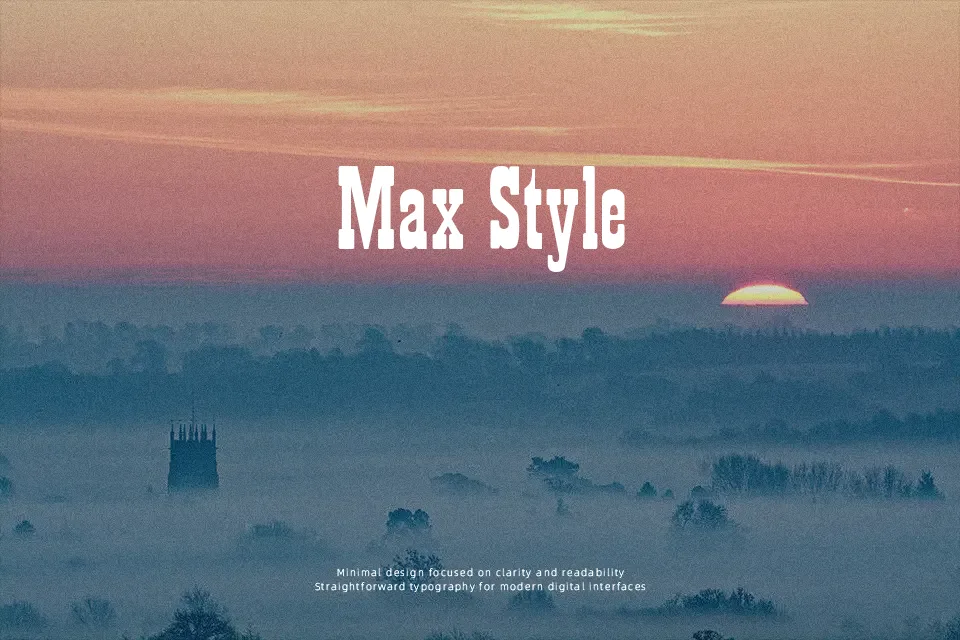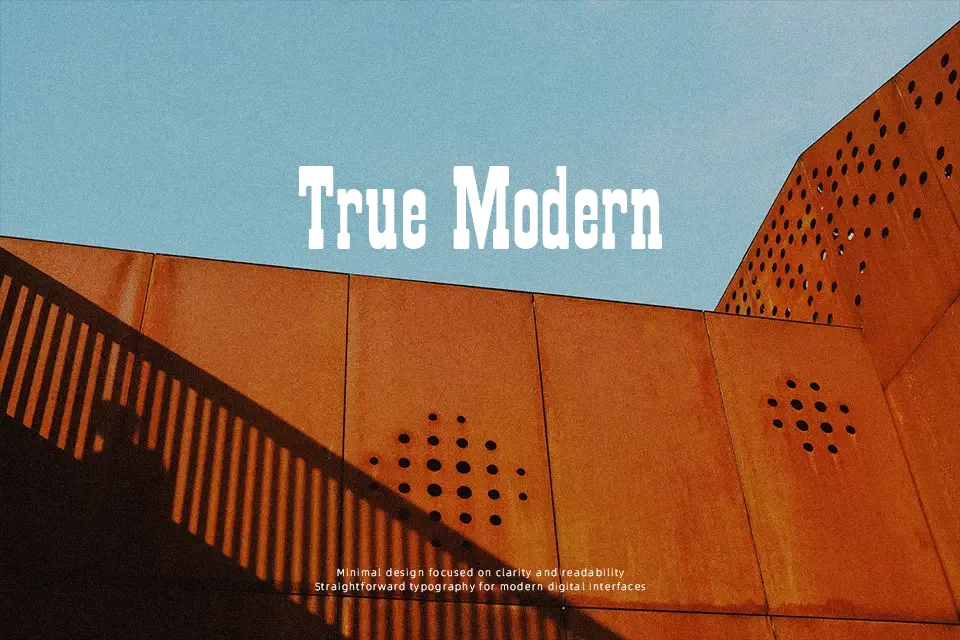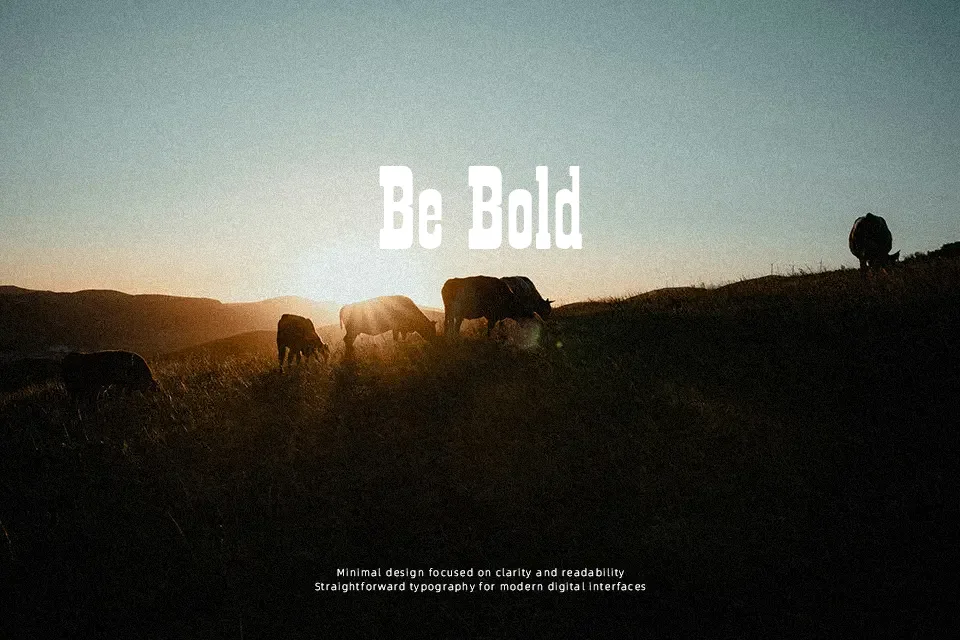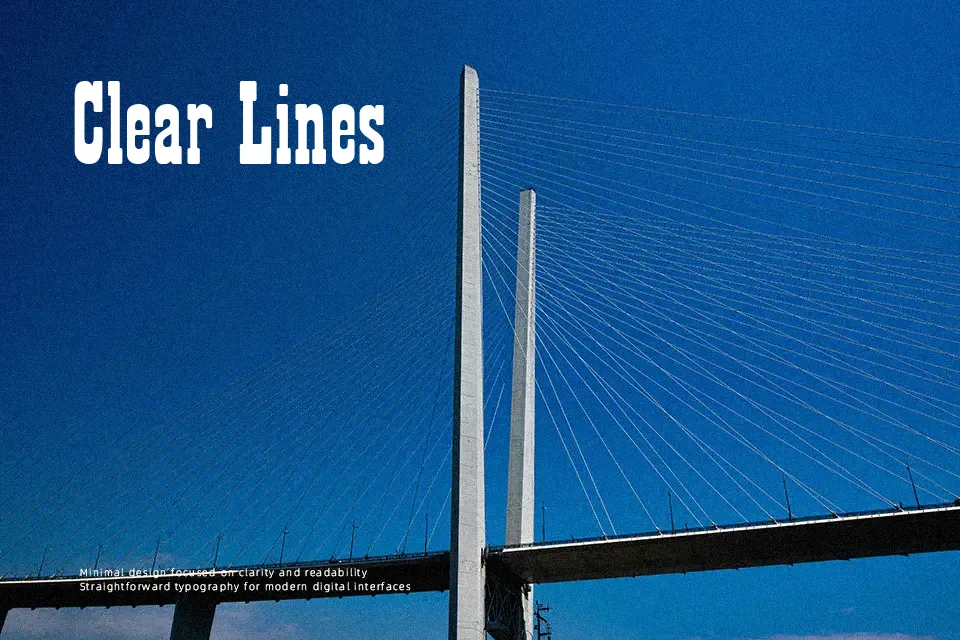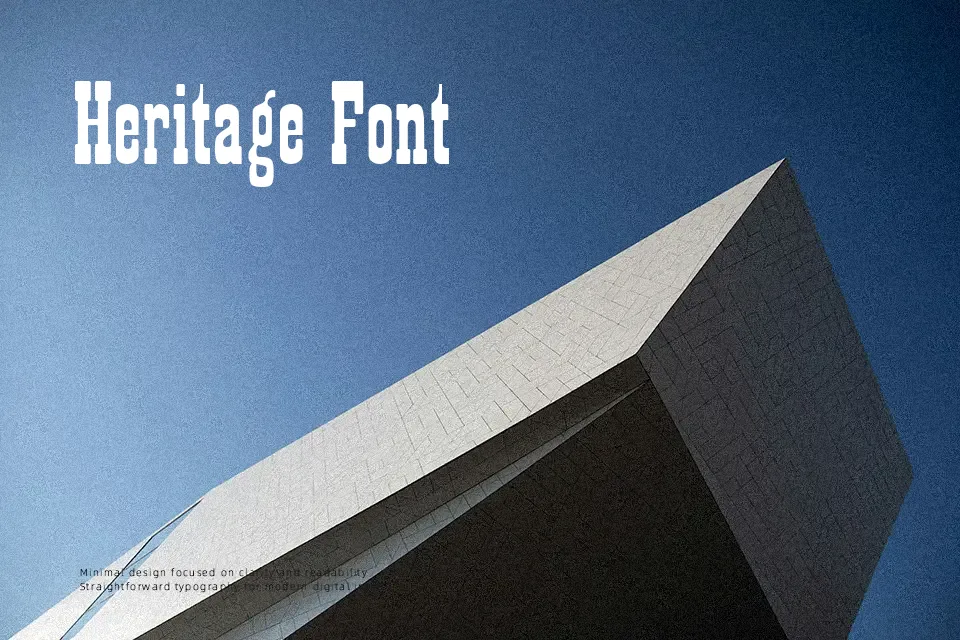
Playbill Font
Designed by Robert Harling
Examining Playbill reveals a typeface steeped in theatrical history, defined by its extreme vertical condensation and pronounced slab serifs. Designed by Robert Harling in 1938, it deliberately echoes the woodblock lettering used on 19th-century theater posters, delivering a striking “Wild West” or classic Broadway aesthetic. The severe contrast—very thick vertical stems paired with heavy, squared-off serifs—gives words an imposing, immediate presence. This makes it an incredibly powerful tool for designing large-scale event flyers, dramatic storefront signage, or vintage-themed product labels. However, its extremely tight letter spacing and unusual proportions render it functionally useless for body copy. Any attempt to use Playbill for paragraphs, website navigation, or subtle corporate branding will result in a chaotic, illegible mess. It is a pure display face that requires massive size to function effectively.
vintage theater poster designs
western-themed restaurant branding
large-scale advertisement headlines
long-form editorial body text
modern tech startup logos
mobile application menus
Perfect for advertising, branding, and headline, with a bold and display style.